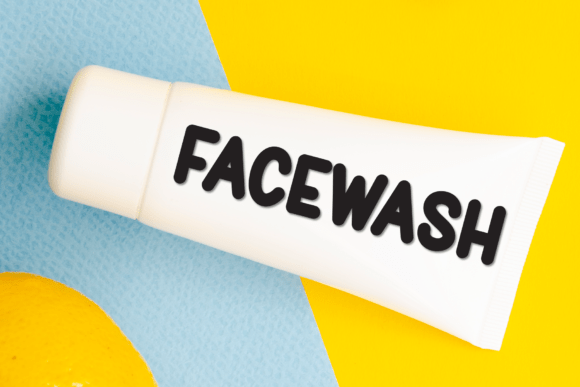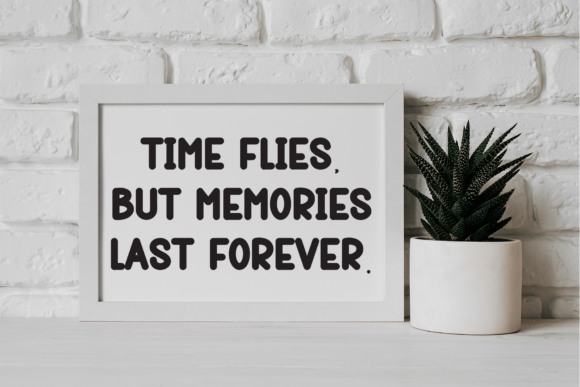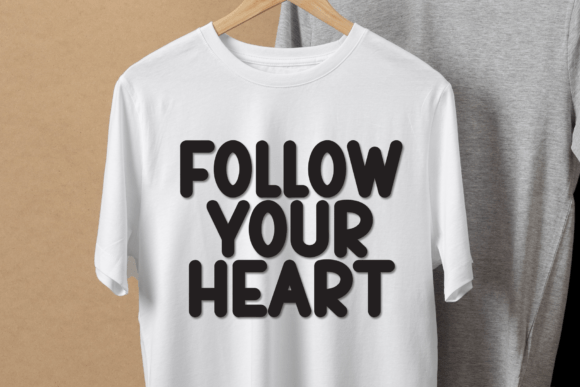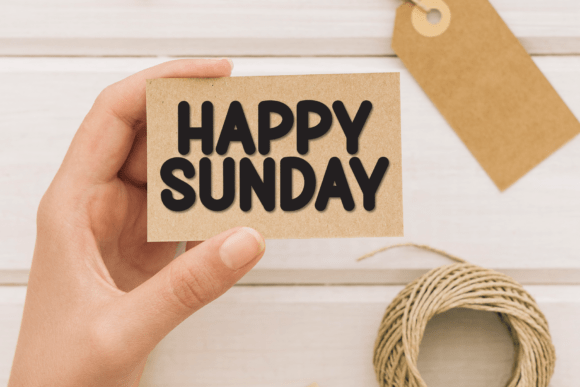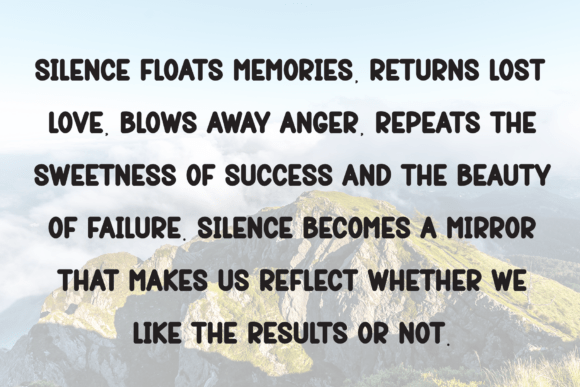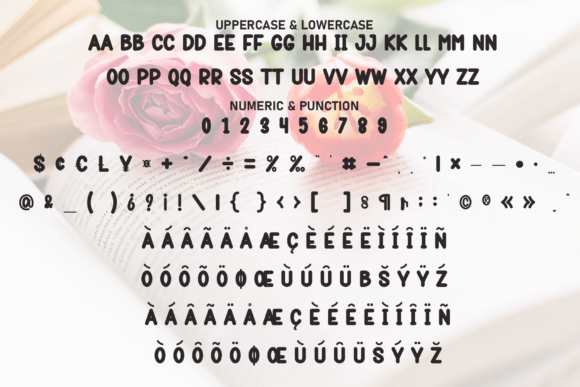
Introduction to Flowers Booklove Font
Experience the captivating enchantment of our intricately designed display font, a soothing symbol of peace and amity.
Brimming with exuberance and bright energy, this distinctive typeface springs to life when utilized in creating refined wedding invitations, delightful greeting cards, or any other creative endeavor seeking a dash of vibrance Yield to the engaging refinement of this entrancing font; it amplifies your artistic production with its tranquil power, propelling your creative endeavors to awe-inspiring dimensions.
Flowers Booklove Font offers exceptional quality and versatility, making it a valuable addition to your design toolkit. Whether you’re creating for personal projects or commercial use, Flowers Booklove Font delivers professional results.